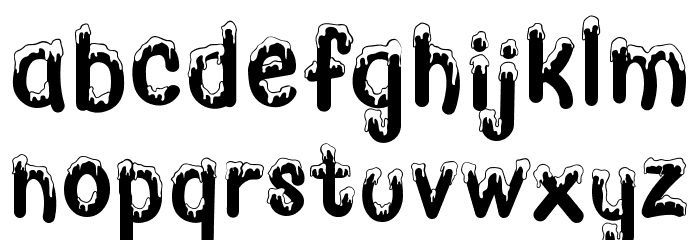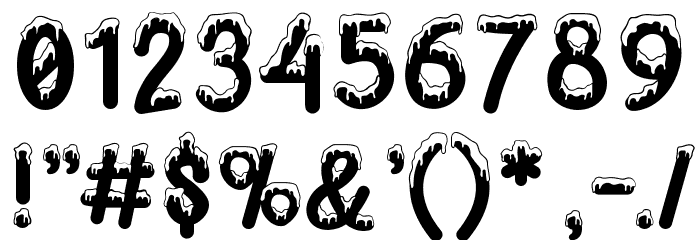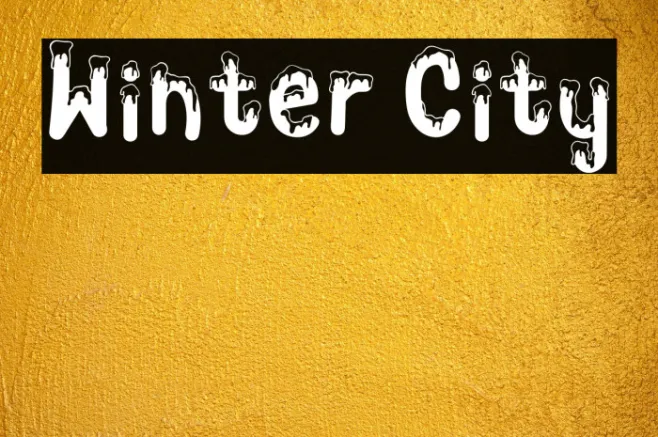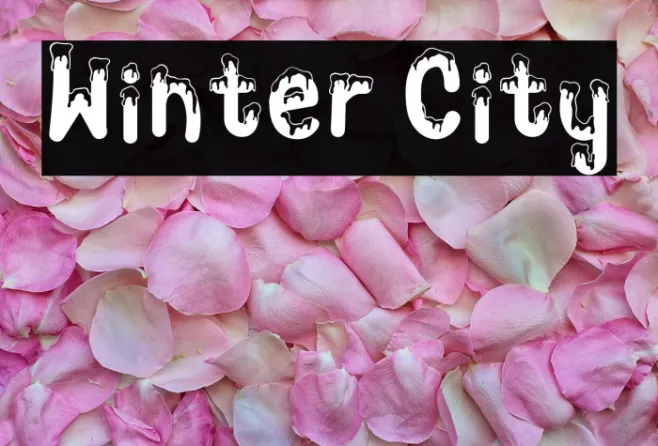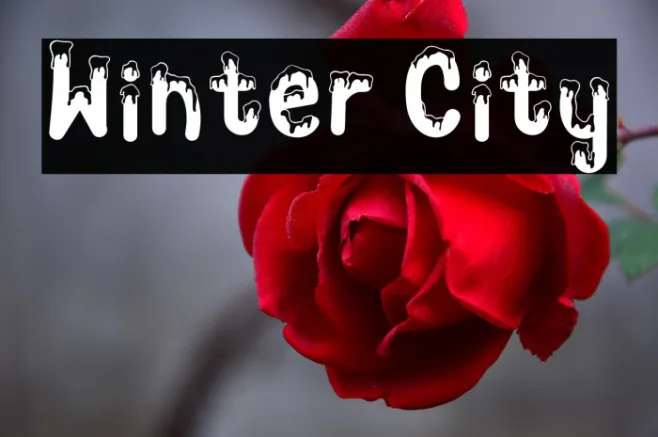
Winter City Font
This font features a playful and whimsical design, reminiscent of winter and snow. Each character is adorned with snow-like accents, giving the impression of frost or icicles hanging from the letters. The style is bold and eye-catching, making it ideal for festive or seasonal themes. The characters are rounded and smooth, with a consistent thickness that adds to the overall playful aesthetic. The font maintains a uniform appearance across uppercase, lowercase, numbers, and special characters, ensuring versatility in various design applications.
A playful, winter-themed font with snow-like accents on each character.
- Proposed Projects: Ideal for holiday cards, winter festival posters, children's book covers, and seasonal marketing materials.
- Use Case: Headlines, Logos, Seasonal Designs